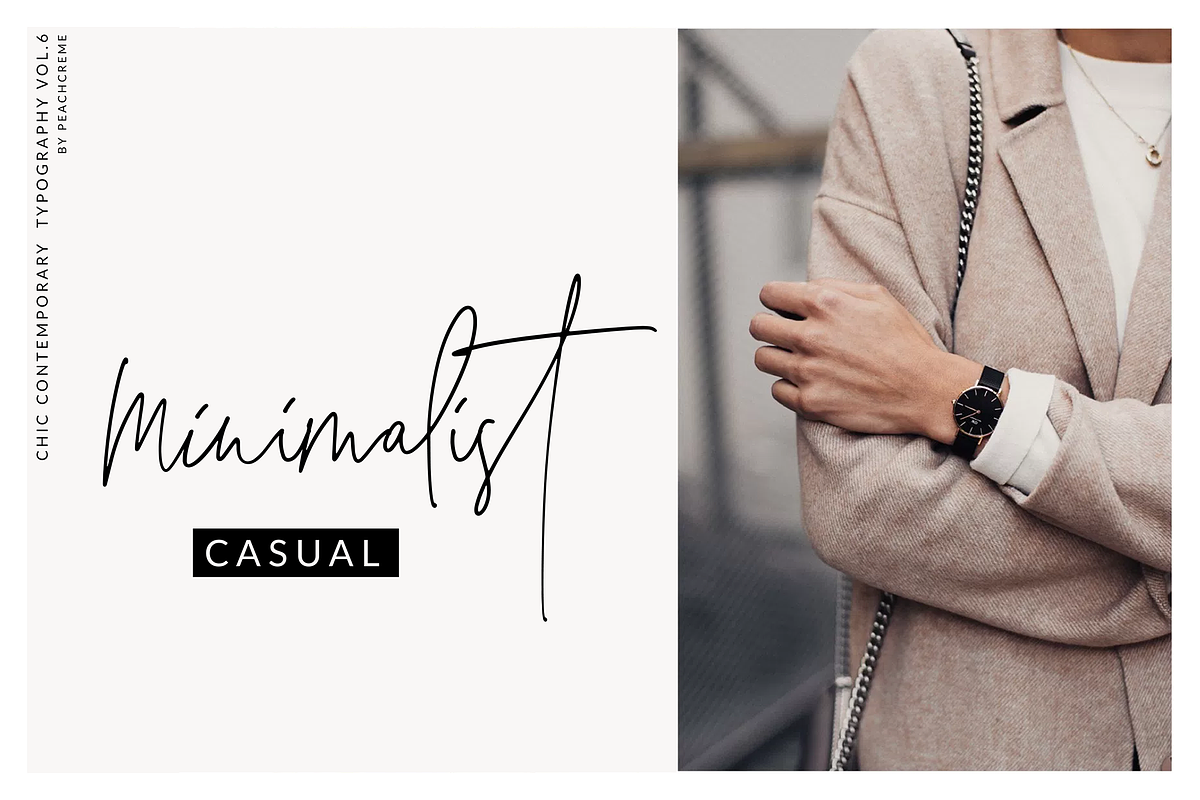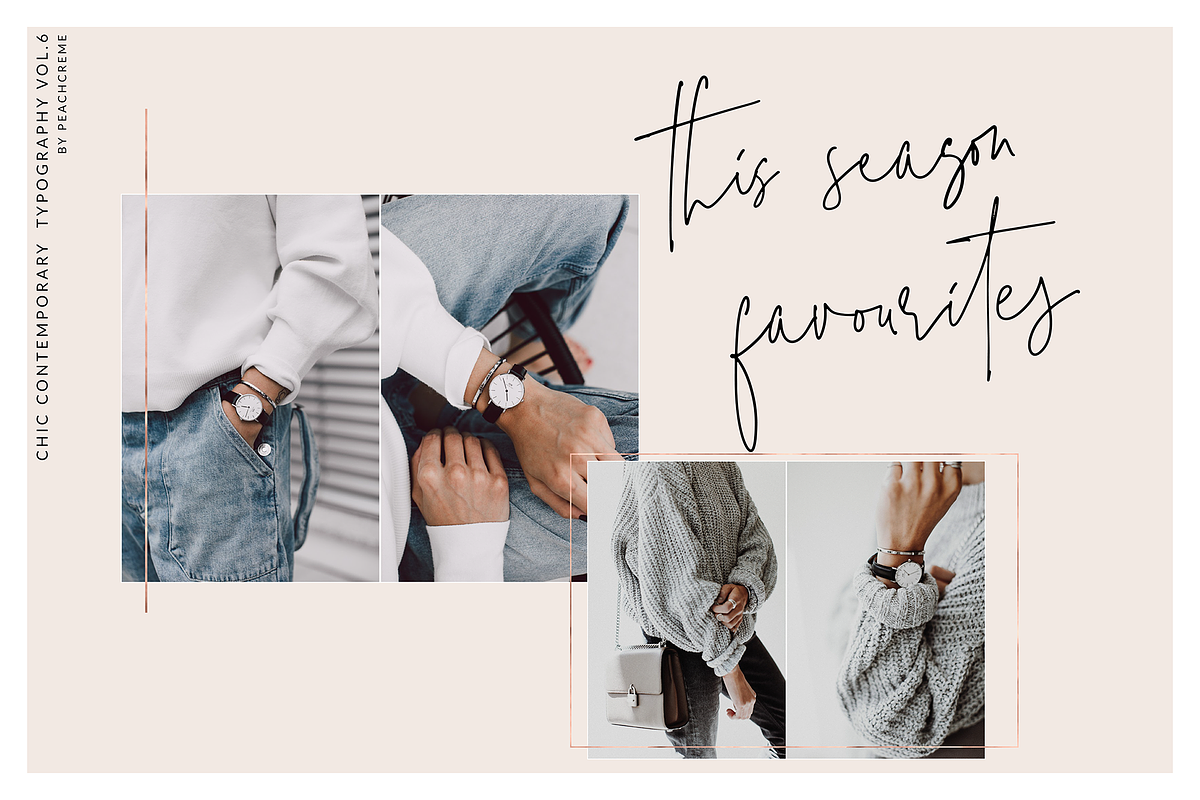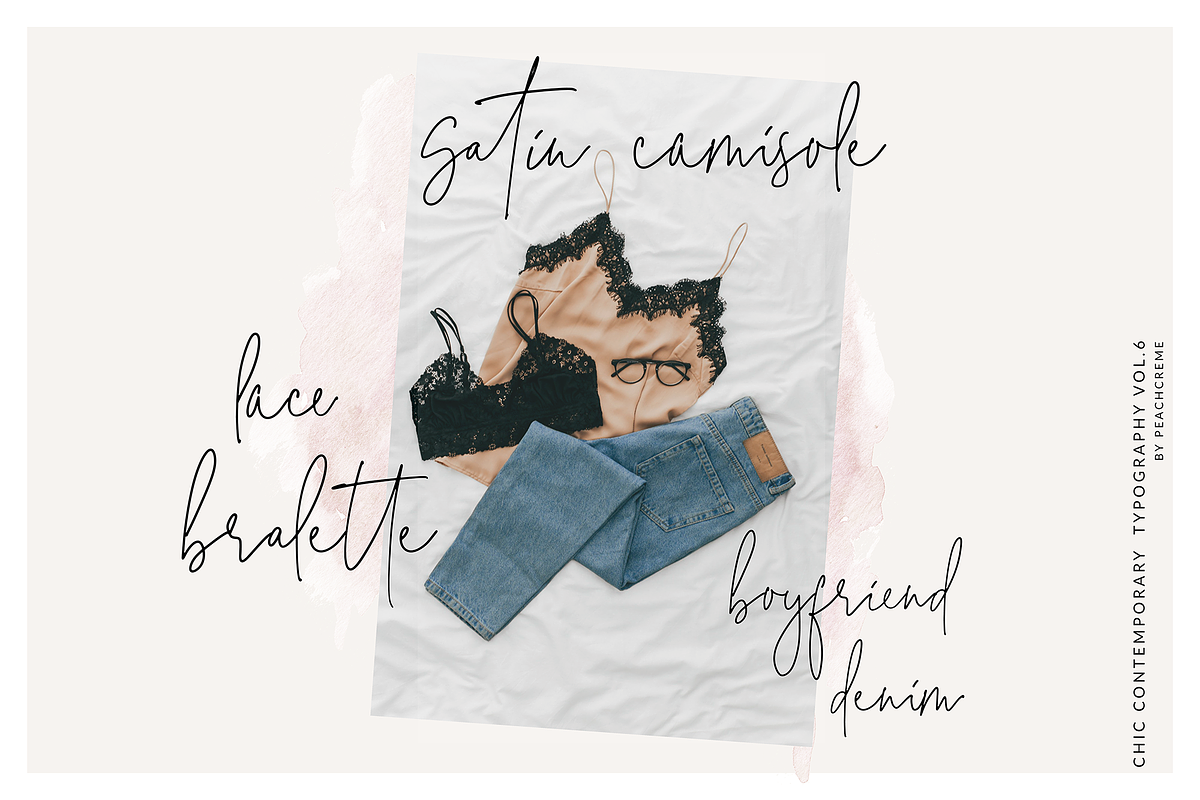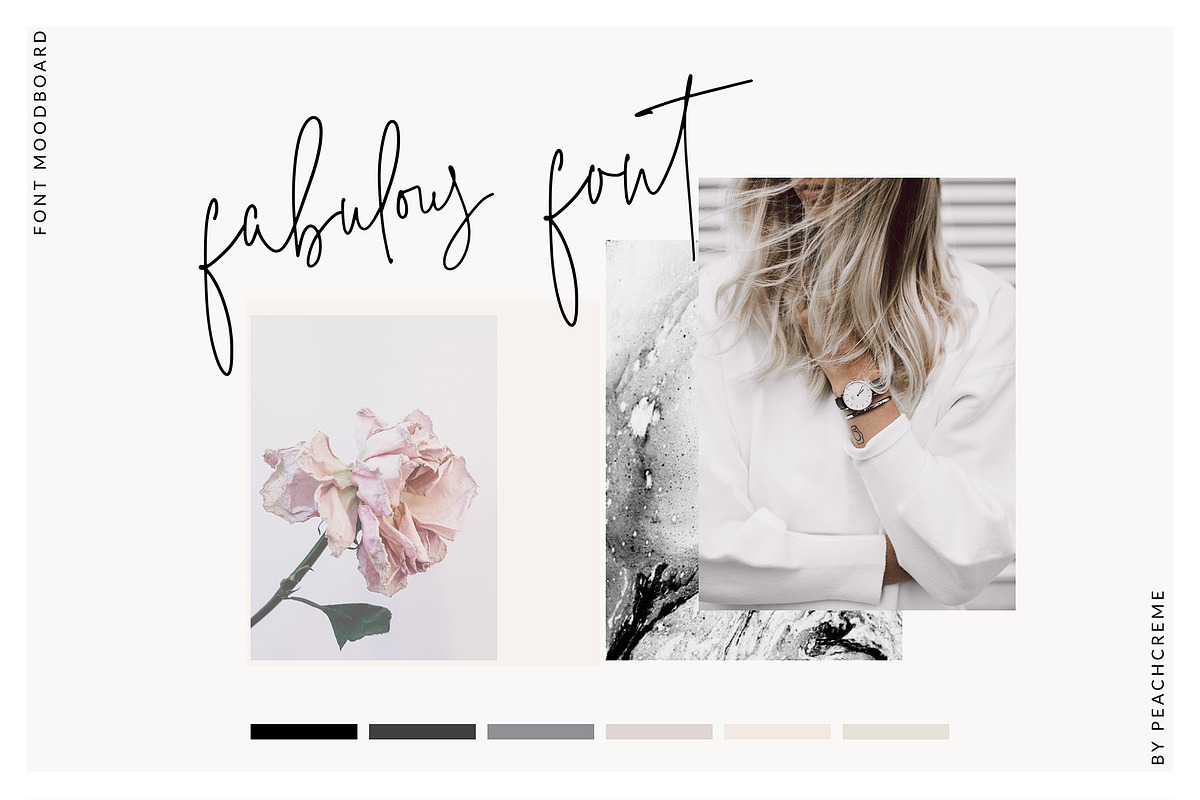
“The Styled Edit” is a crème de la crème font with contemporary, sophisticated accents. It is perfect for blogging, social media, branding, wedding invites and cards.
“The Styled Edit” includes full set of gorgeous uppercase and lowercase letters, numerals, a large range of punctuation and 90 ligatures, giving realistic hand-lettered style.
When creating the font, we should take into consideration that each letter should be able to be connected with other letters. For example, letter “a” should be well connected as well as with “l” and “n” and with any other letters. This limits us: we have to start letter from exact one point and finish in exact second point. So here come ligatures. I surveyed mostly common letter combinations and made 90 Discretionary ligatures with following letter combos:
ae et au ay oo ab al at nl el cl il ol sh sl ct dd ea bb cc mm lk ck ee ng ll nn pp the ad yl ed ce me ou nt ss th id rr bl es ut si en in tt ch ie ul ei be ci ly ion er ne sa so it is of op ex gg gh sk re on son ob ir tl mai men out ted sion ous est ment aus and ten cy can ta ff ſt st
By using these ligatures, you can give realistic handlettered style, escaping font “pattern” effect.